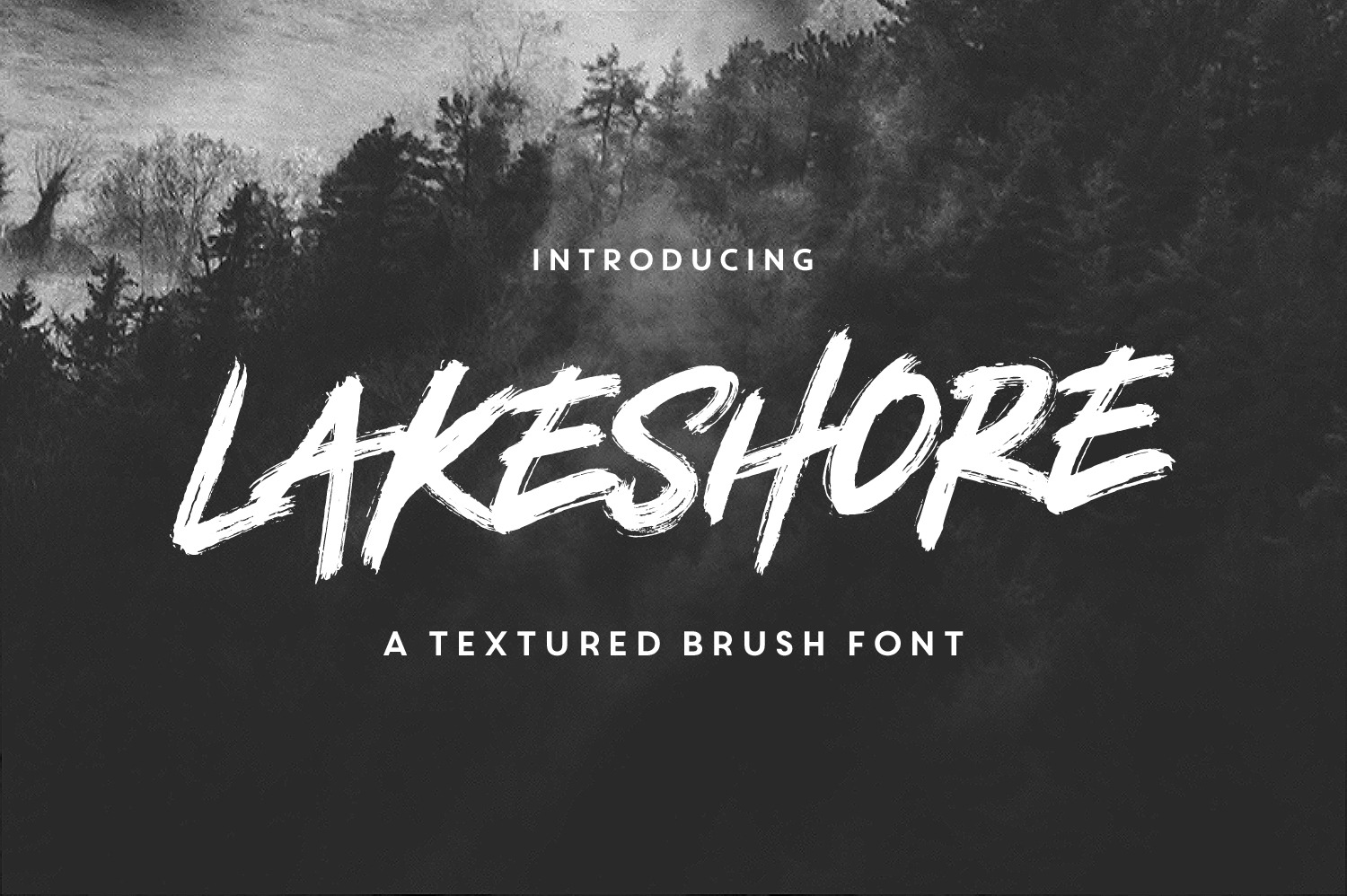
Lakeshore Brush Font
Lakeshore is the modern, hand painted font that you've been looking for. Each character was carefully painted (often more than fifty times) until the results were nothing short of perfect. A ton of detail was preserved when the characters were digitized, so that large letters will look fantastic up close.
Lakeshore Regular - The standard version of the font. Perfect for titles and logos.
Lakeshore Italic - This is the italic version of the Lakeshore font series. Great for blocks of text and more aggressive looking titles.
Lakeshore Swash - Need a cool underline under your text or a splash of paint? This font set has you covered. Type any letter a-z using this font, and you'll get a unique swash to accompany the font.
Language Support - We've added in a great deal of extra characters to support many different languages.
Alternate Ligatures - Even though this is an uppercase font, the lowercase characters will give alternate uppercase characters. In other words, 't' and 'T' will give different capital T characters, which gives you variance to work with.